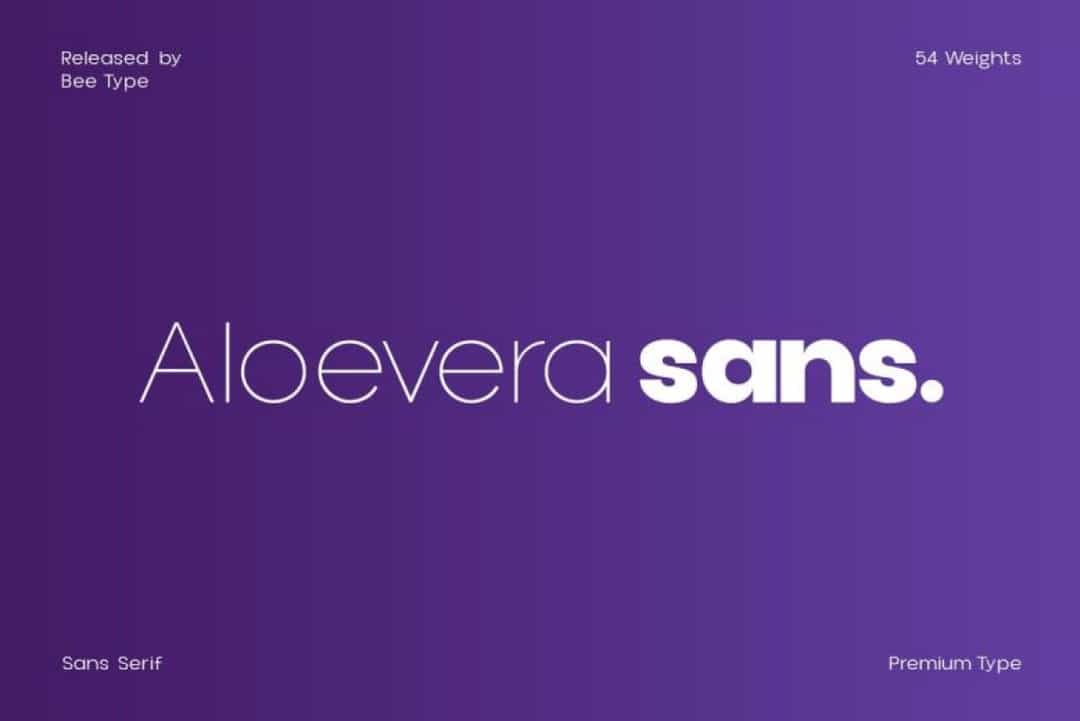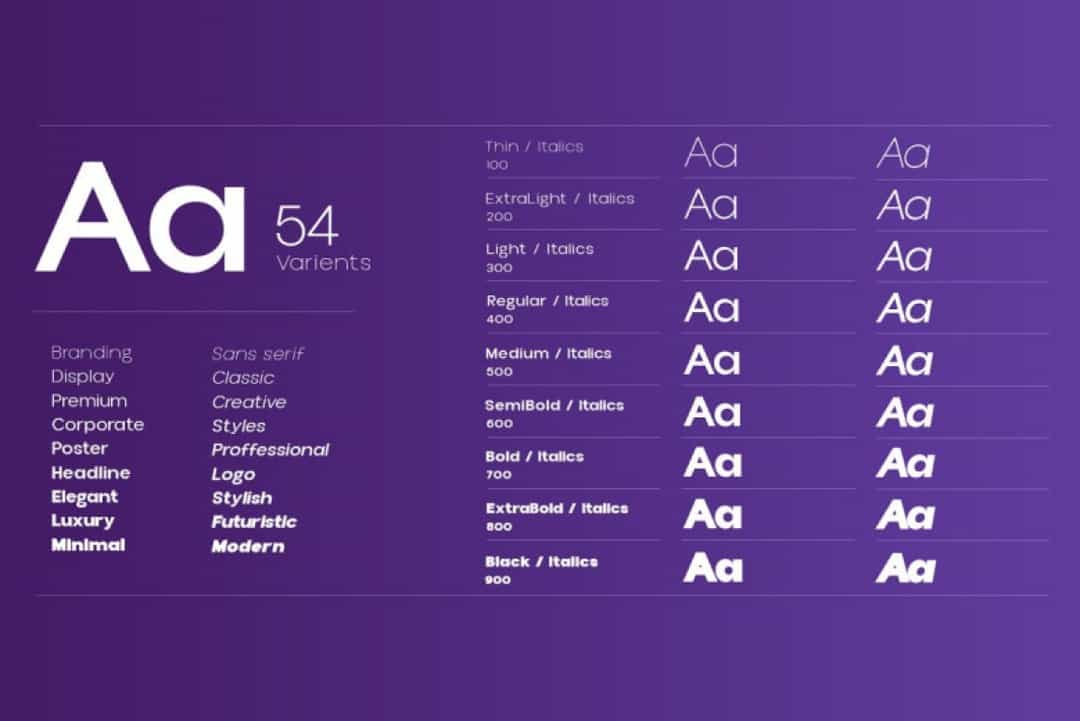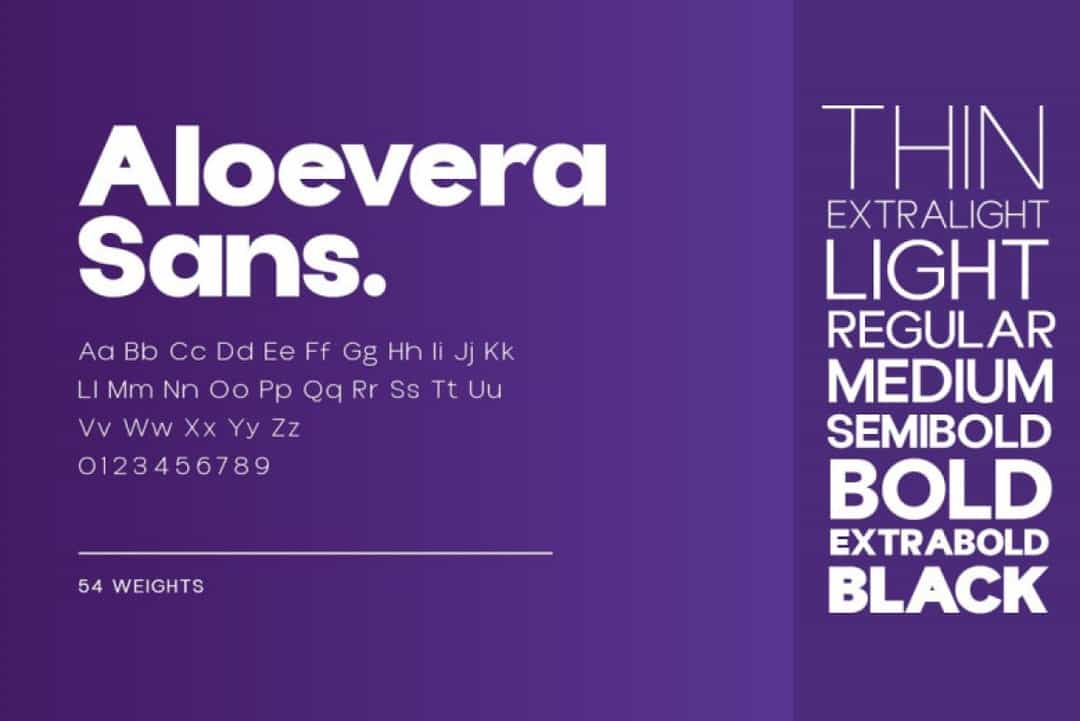
Aloevera Sans is a Brand New Elegant Typeface featuring 54 Variants. This typeface offers reliable letterforms with modern elements for use in magazines, logos, films and posters; perfect for headlines, branding captions paragraphs posters with its variable weights allowing users to explore all possibilities within it’s many uses.